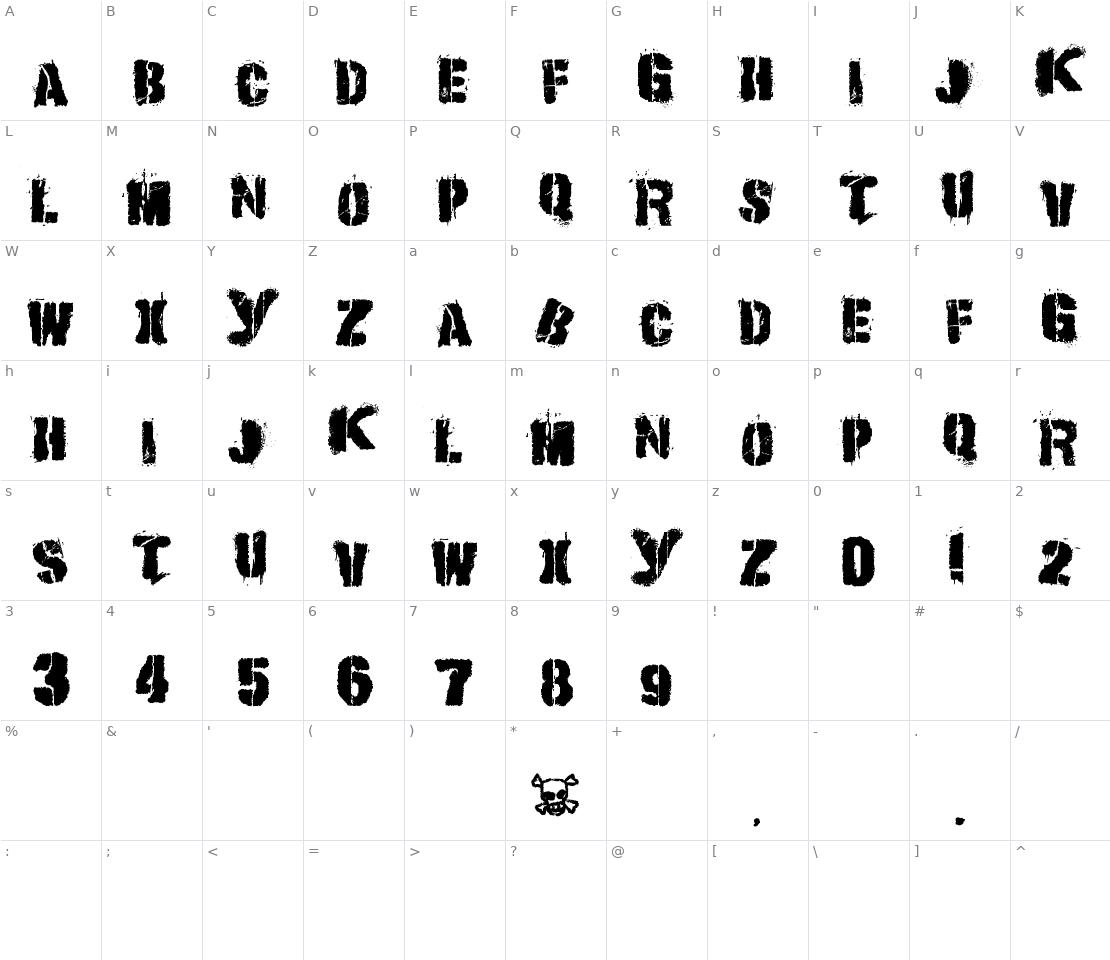
If
by Christopher Hansen
If is a heavy, distressed display face by Christopher Hansen with a raw, beaten-up texture that makes every letter look like it survived a rough night. The bold letterforms are coated in grit and wear, giving headlines and posters an authentically grungy, dark tone. Best kept big, where the rough surface detail comes through and the weight really hits.